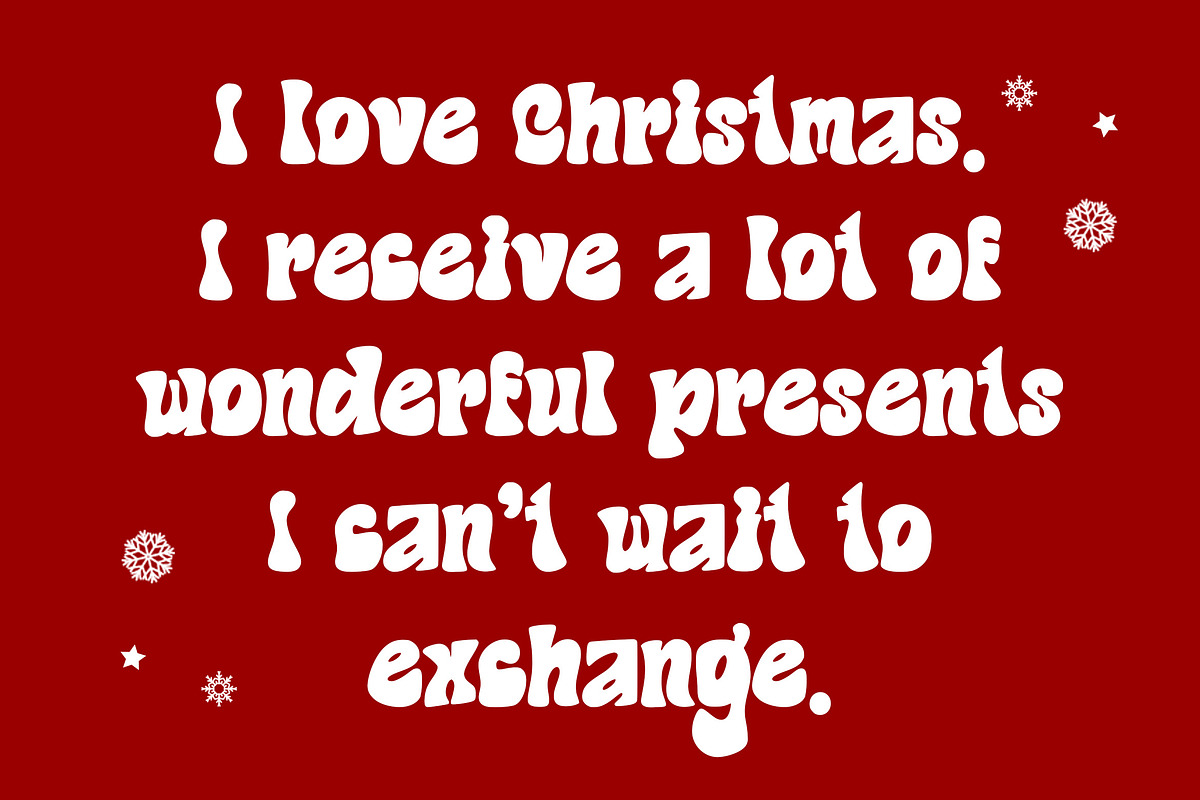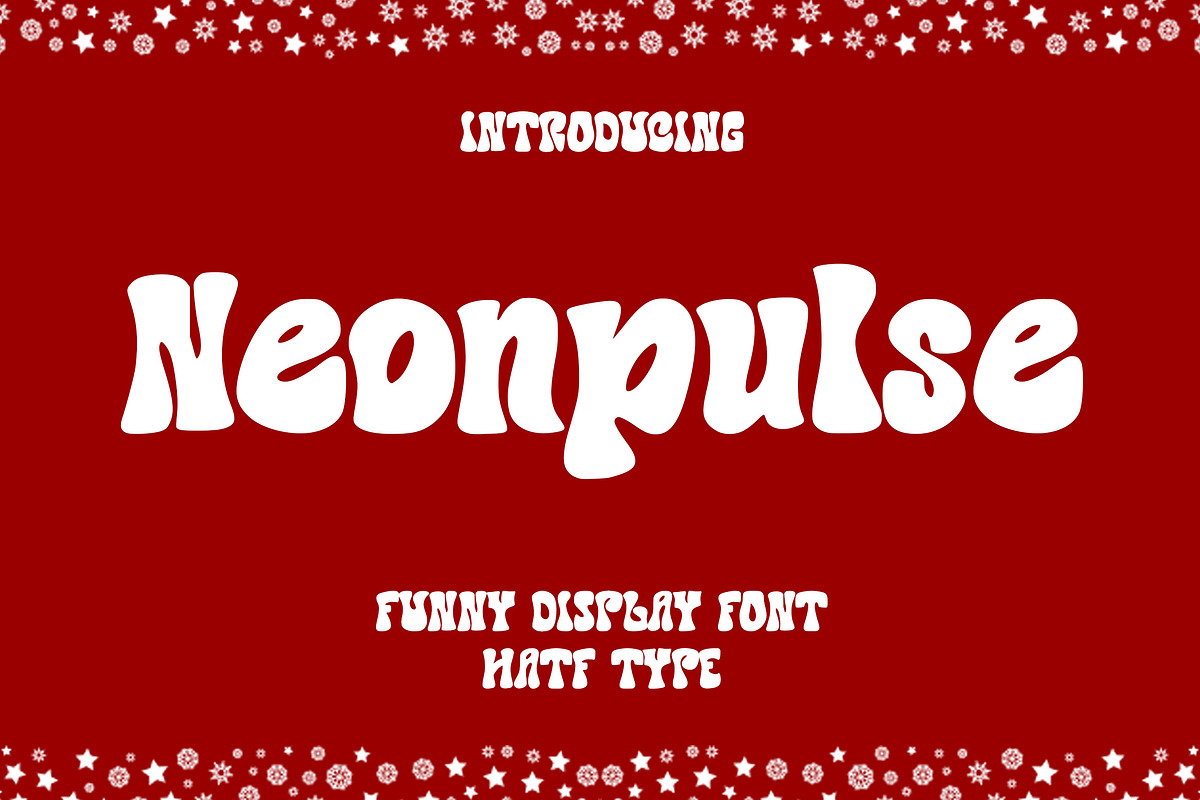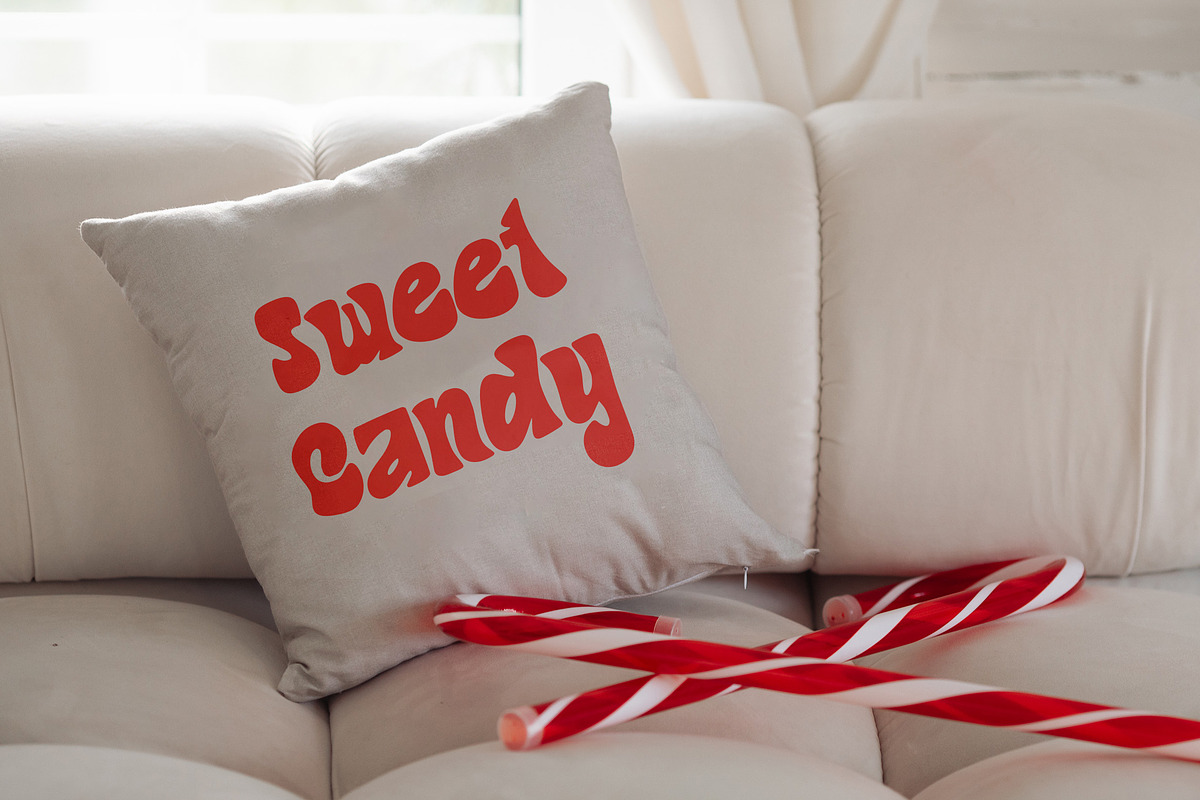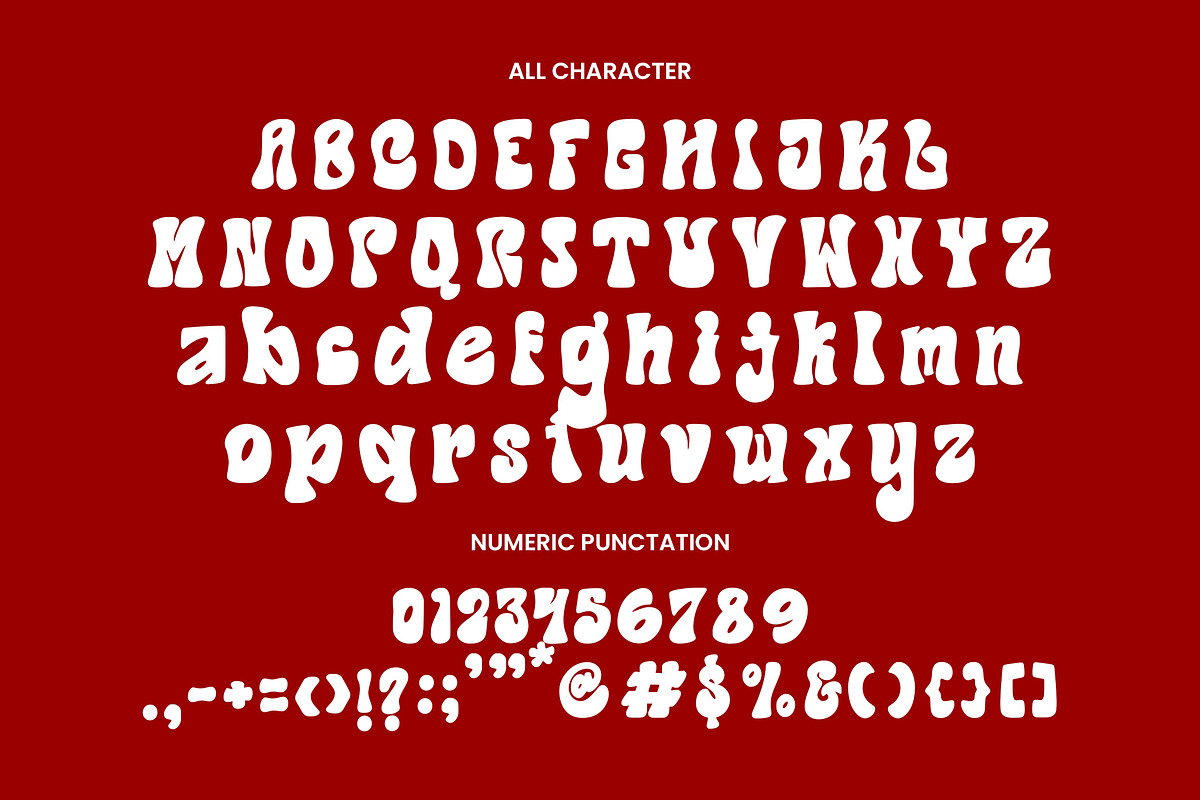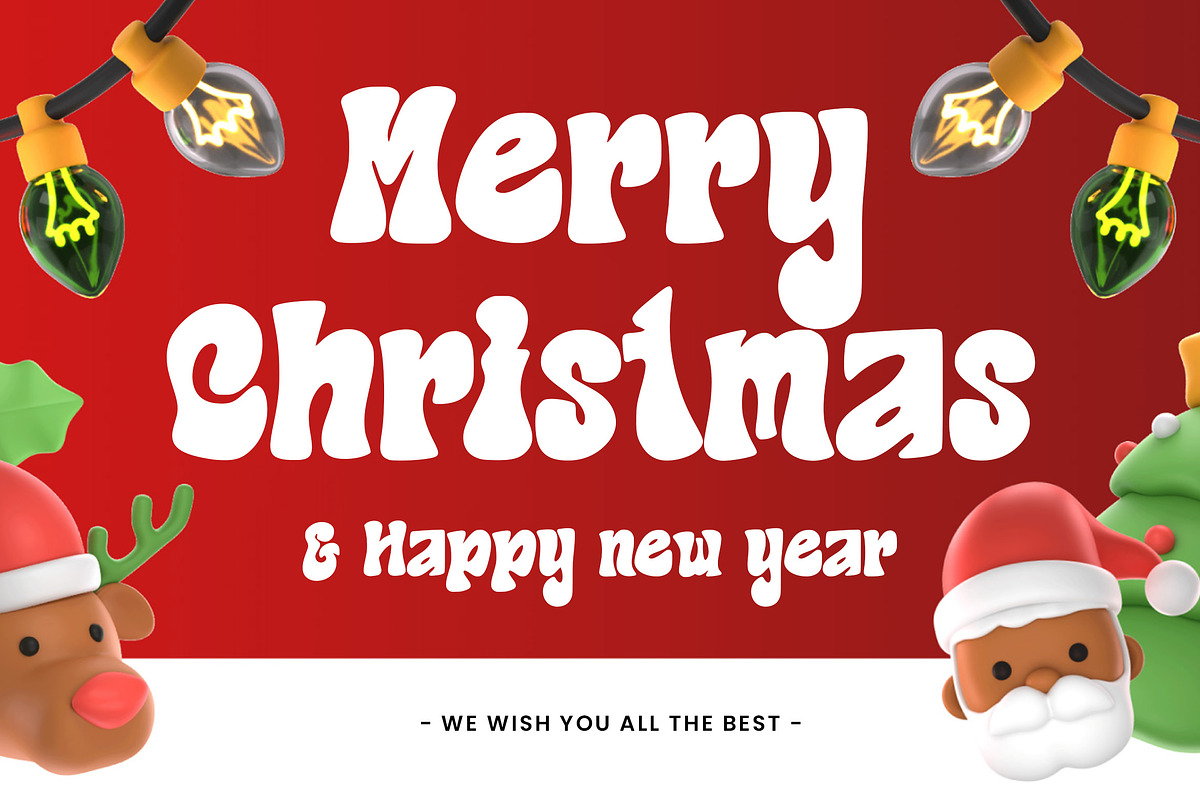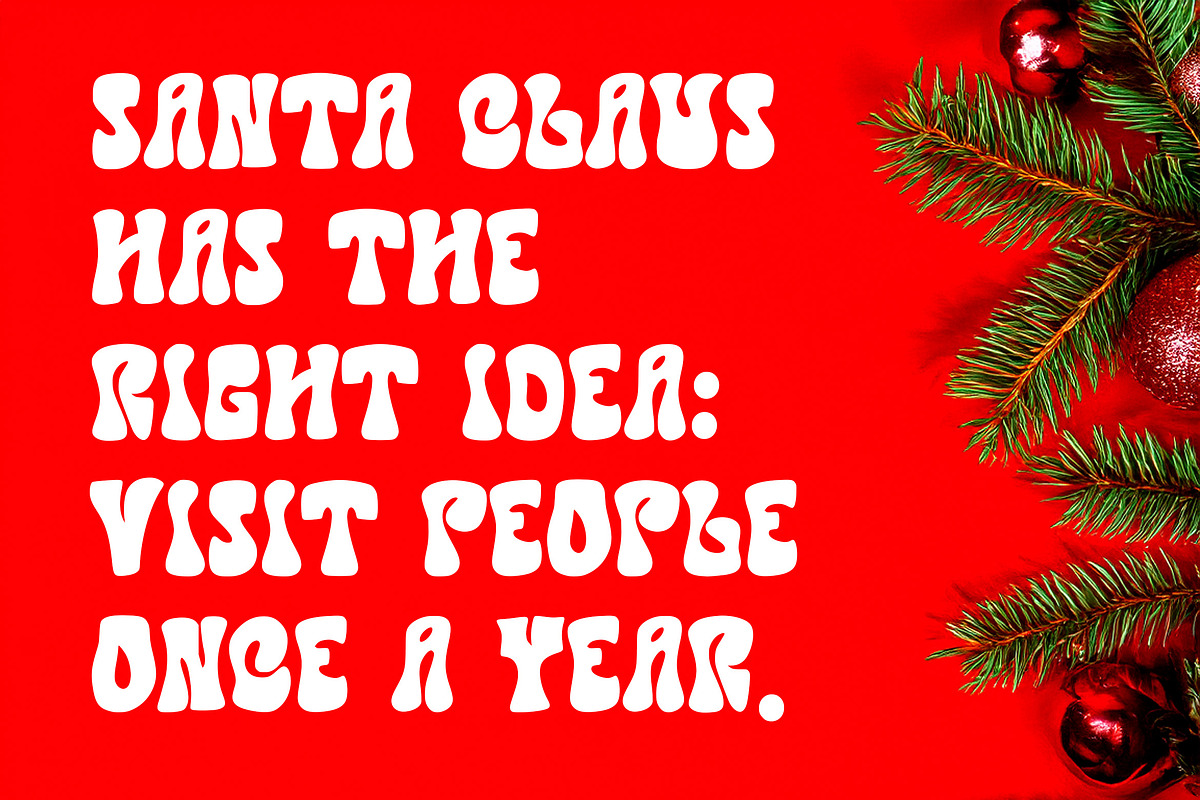
Neonpulse
Illuminating the Christmas spirit with a modern style, NEONPULSE is the perfect display font to create a festive and futuristic atmosphere. Each letter in NEONPULSE is designed to radiate the energy, joy, and magic of the holiday season.
This font is ideal for Christmas posters, greeting cards, digital decorations, party invitations, and any design needs that require a dynamic and unique touch. The combination of clean lines gives a contemporary aesthetic that is still warm and fun.
Let NEONPULSE be a part of your Christmas story, conveying the message of love and happiness in a stunning and stylish way.